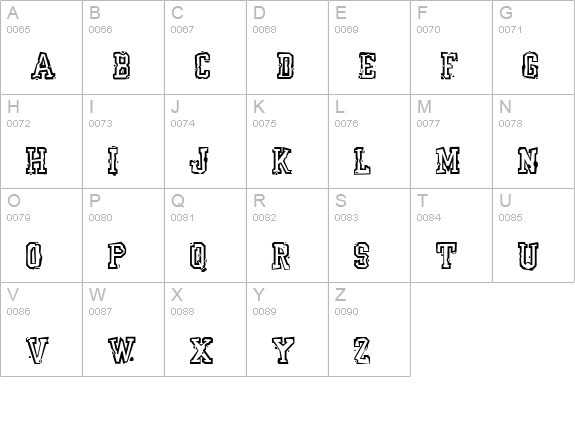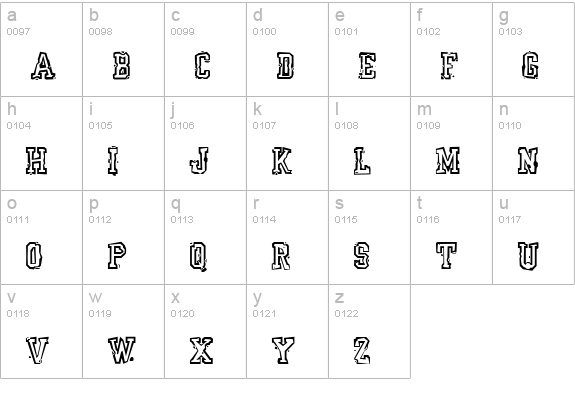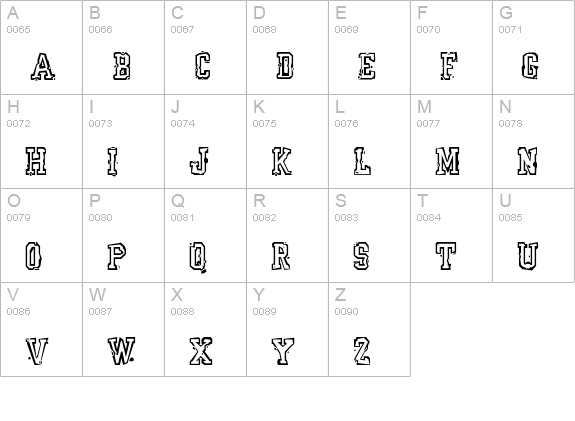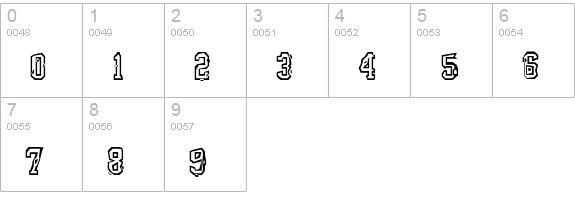
YearBookMess Font Details
YearBookMess font is a whimsical and playful typeface that captures the essence of youthful creativity and fun. With its irregular and hand-drawn letterforms, this font conveys a sense of spontaneity and charm that is perfect for adding a touch of personality to your designs. Whether you're working on a school project, scrapbook, or any other creative endeavor, YearBookMess font will bring a sense of joy and individuality to your work. Best of all, YearBookMess font is available for free download at FontsMarket.com. This means you can easily access this delightful font and use it in your projects without any cost. Embrace the unique character and expressive nature of YearBookMess font to make your designs stand out and leave a lasting impression. Let your creativity run wild with this free and fantastic font.